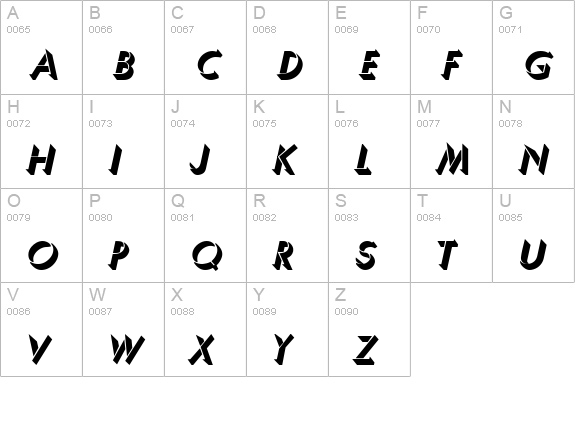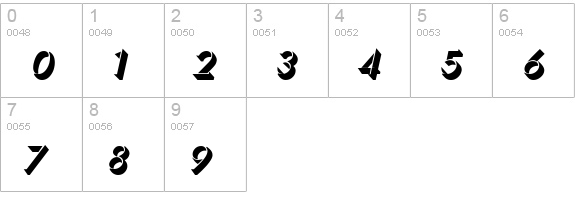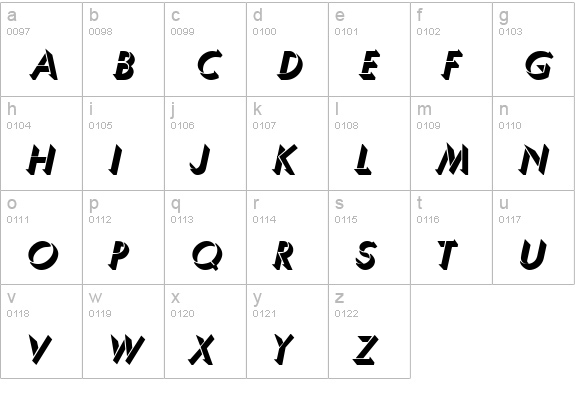
Umber BoldItalic is a striking and captivating font that exudes an aura of elegance and sophistication. With its unique blend of boldness and italicized flair, this font is perfect for adding a touch of style and distinction to any creative project. The deep, rich strokes of Umber BoldItalic convey a sense of confidence and strength, while its graceful curves and subtle angles lend a touch of refinement. This font effortlessly captures attention and stands out from the crowd, making it an ideal choice for headlines, titles, logos, and branding materials. What makes Umber BoldItalic even more appealing is that it is available for free download at FontsMarket.com. Yes, you read that right – this exceptional font can be yours without any cost. FontsMarket.com is a trusted source for high-quality fonts, and they are generously offering Umber BoldItalic for free, ensuring that everyone can enjoy its beauty and versatility. Whether you are a professional designer, a creative enthusiast, or simply someone who appreciates the power of typography, Umber BoldItalic is a font that should not be missed. Its bold and italicized nature, combined with its availability as a free download, make it a truly remarkable choice for your next design project. Don't hesitate to grab it now and elevate your designs to new heights with Umber BoldItalic.